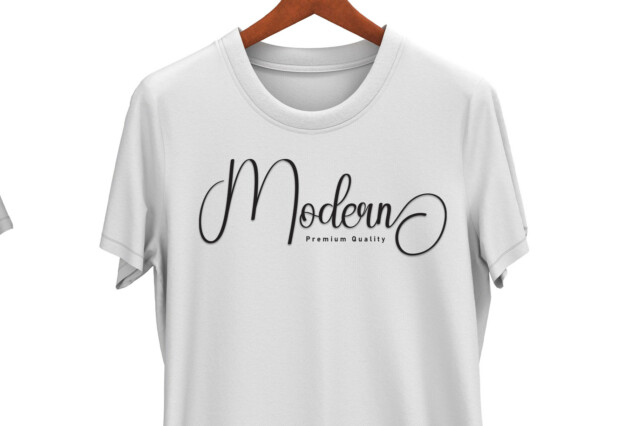
Vacation Calligraphy Font
Vacation Calligraphy Font is a stylish and incredibly elegant script font. It looks stunning on wedding invitations, thank you cards, quotes, greeting cards, logos, business cards and every other design which needs a handwritten touch